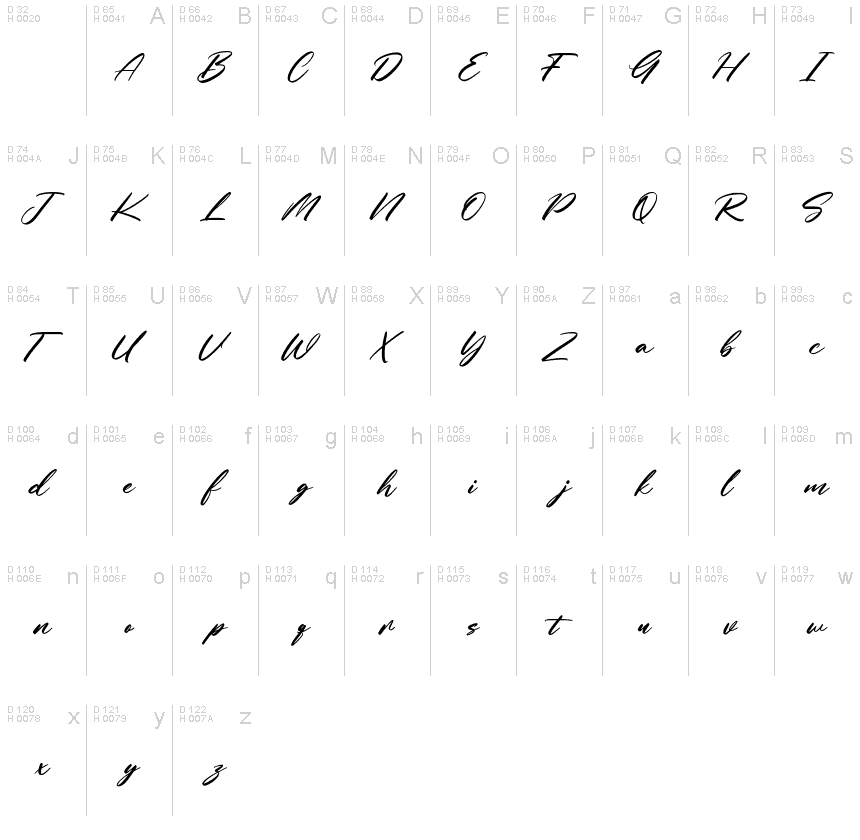
Gritts Rolly Free Regular
Gritts Rolly, designed by Maulana Creative, is a captivating calligraphy font that adds a touch of elegance to any project. This semi-light typeface features expressive strokes and playful characters, complete with ligatures and alternates for added creativity. With multilingual support for over 100 languages, Gritts Rolly is the perfect choice for logo designs, social media graphics, movie titles, book titles, and even lengthy text letters. Pair it with a sans or serif font to create visually stunning works that are sure to leave a lasting impression. Unleash your creativity with Gritts Rolly font!